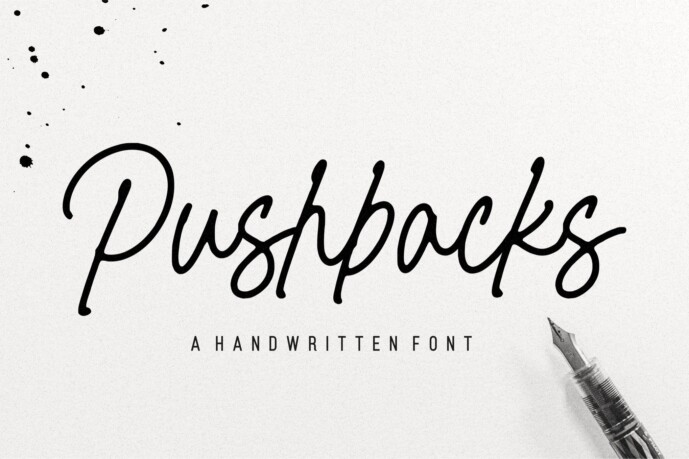
Pushback Font
Designer: BalpirickStudio
Pushbacks is a Handwritten Font.
Pushbacks is a genuinely original and modern handwritten script font. It has a casual style and it will enhance each of your favorite design ideas.